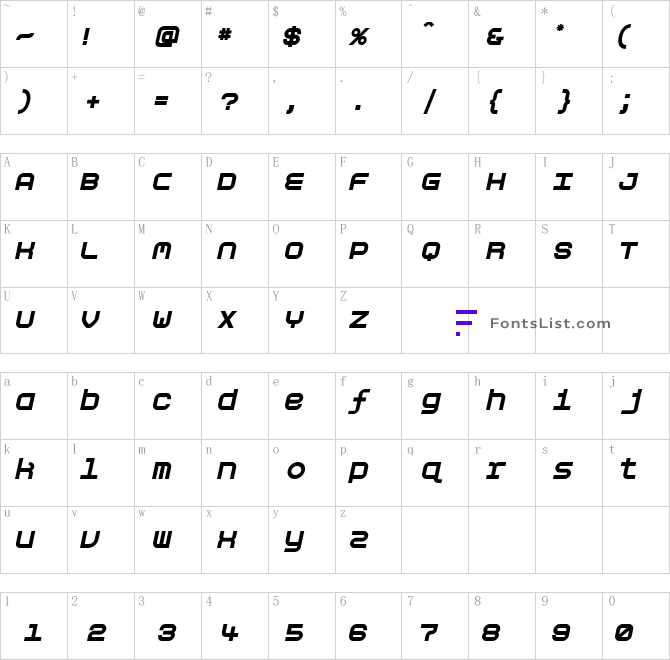
AspirinRefillCollapsed.ttf is a very beautiful artistic font, AspirinRefillCollapsed.ttf is widely used in the design and printing of various books and pictures,AspirinRefillCollapsed.ttf has a strong visual impact,AspirinRefillCollapsed.ttf is a commonly used font in newspapers, magazines and books, and is used in posters, e-commerce Poster design, store design, logo design, font design and other fields.AspirinRefillCollapsed.